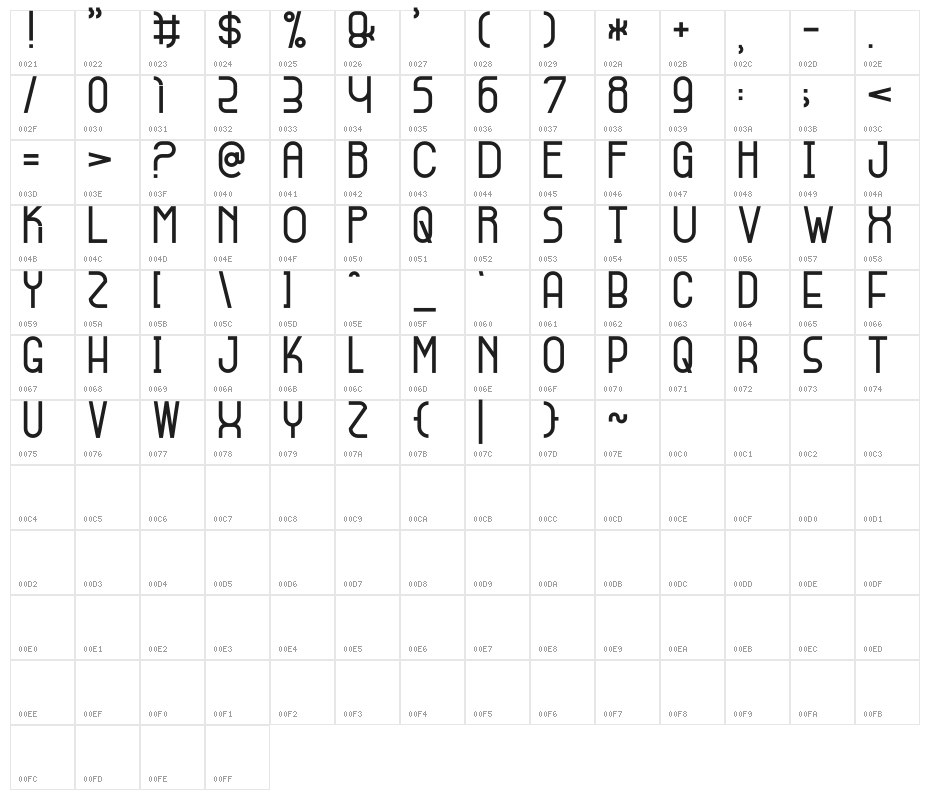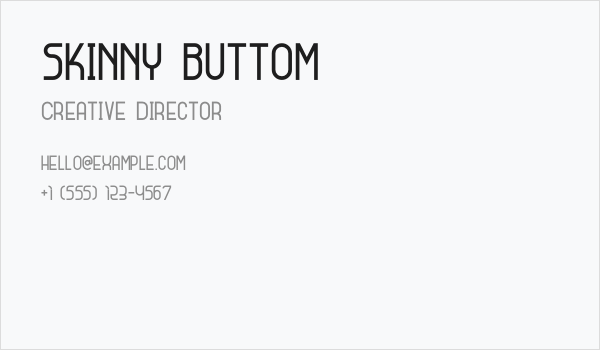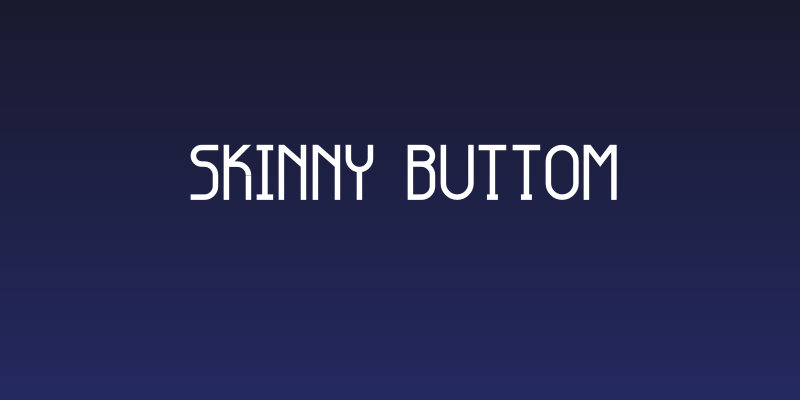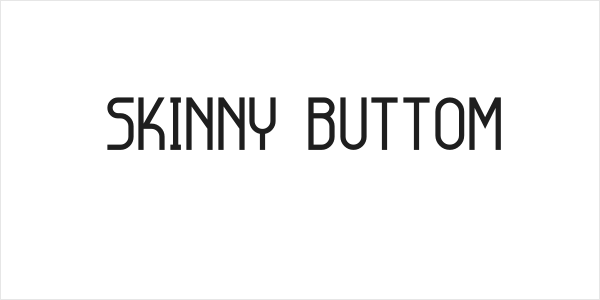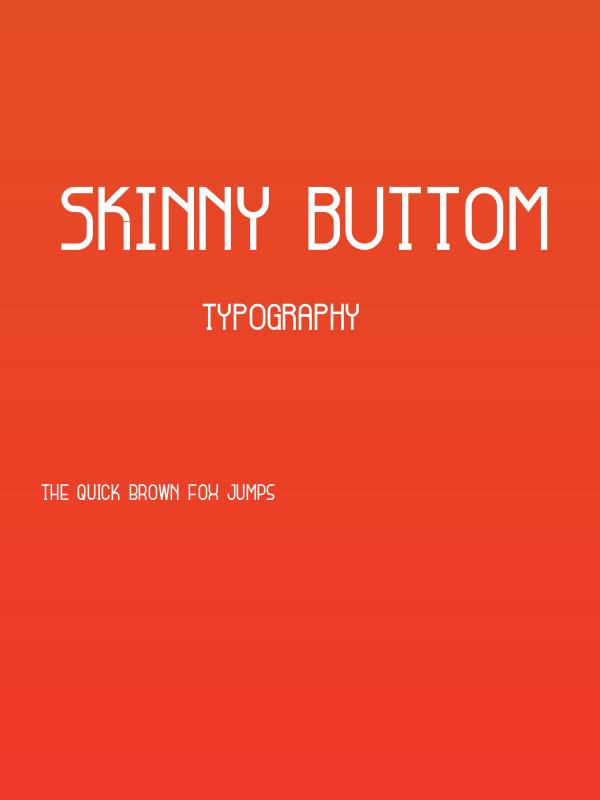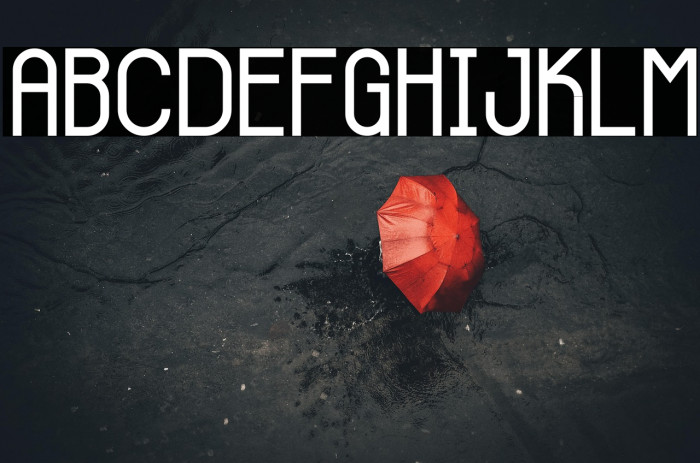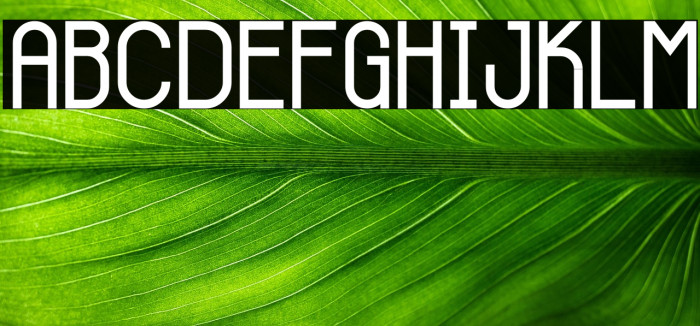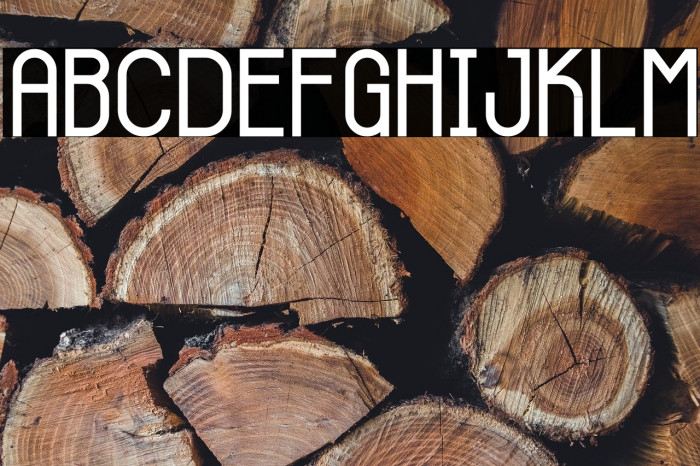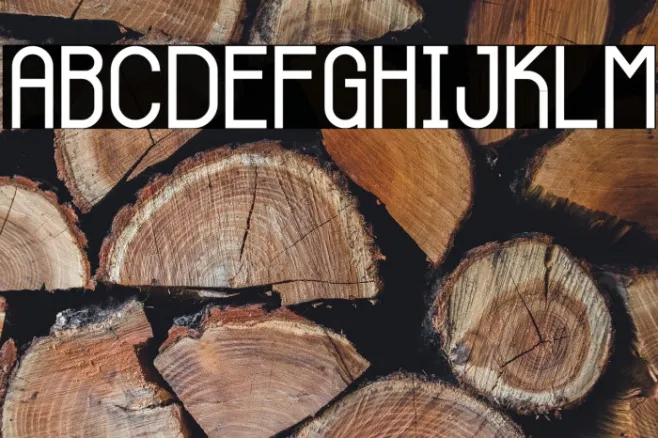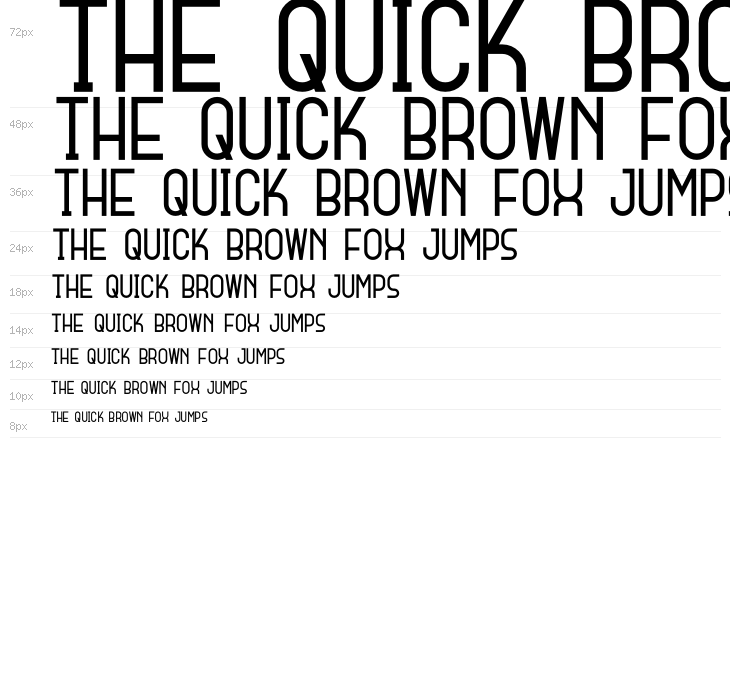
Skinny Buttom Font
Skinny Buttom Description
This font features a modern and geometric design with clean, straight lines and uniform stroke widths. The characters are tall and narrow, giving a sleek and contemporary appearance. The uppercase letters are particularly striking, with a consistent height and minimalistic style. The lowercase letters maintain the same geometric aesthetic, ensuring readability and a cohesive look. Numbers are clear and distinct, matching the overall style of the alphabet. Special characters are designed with the same attention to detail, making them easily recognizable and functional. This font's simplicity and precision make it versatile for various design applications.
| Use Case | Headlines, Logos, Digital Interfaces |
| Proposed Projects | Ideal for branding, editorial design, digital interfaces, and modern advertising campaigns. |